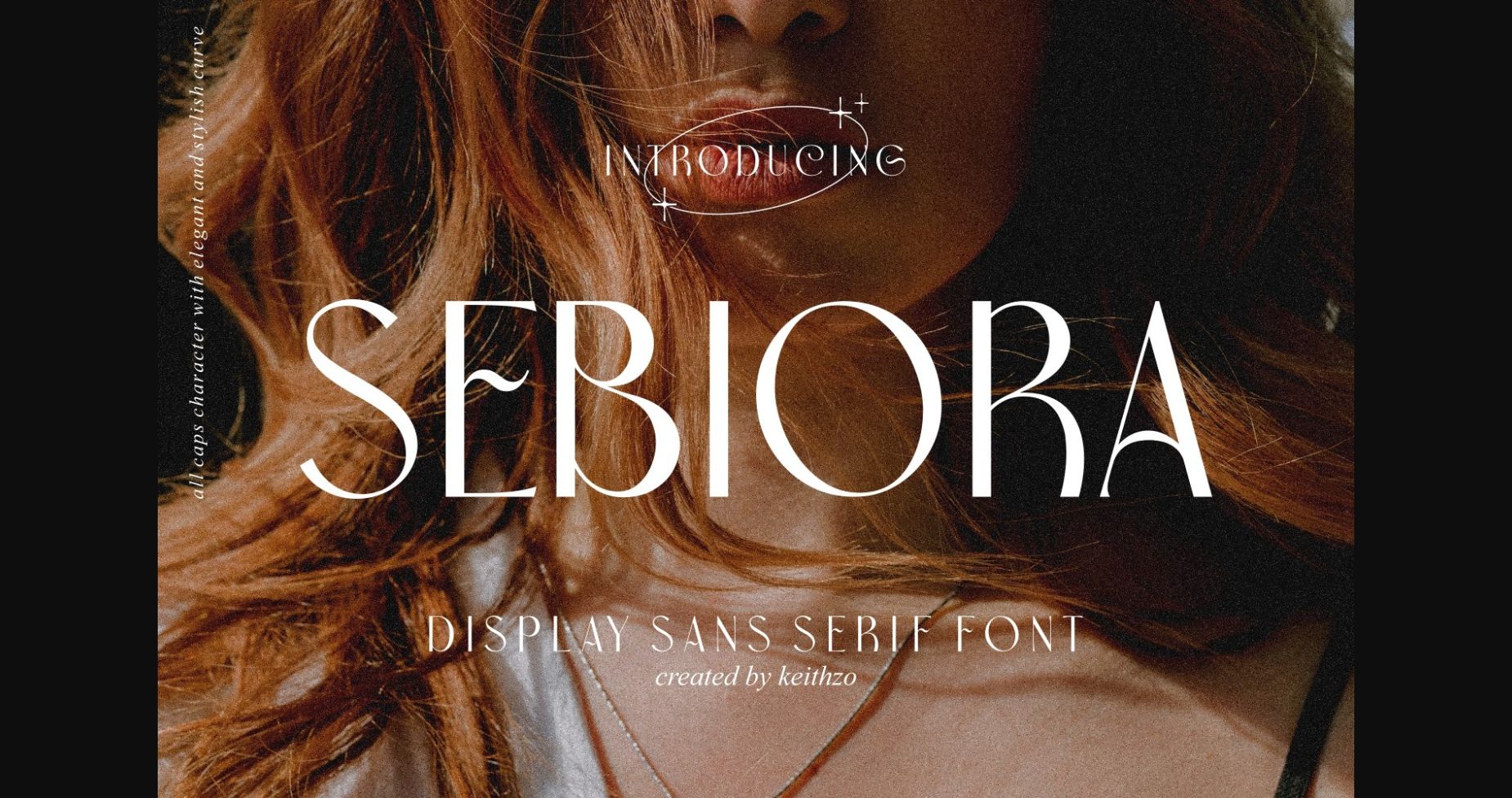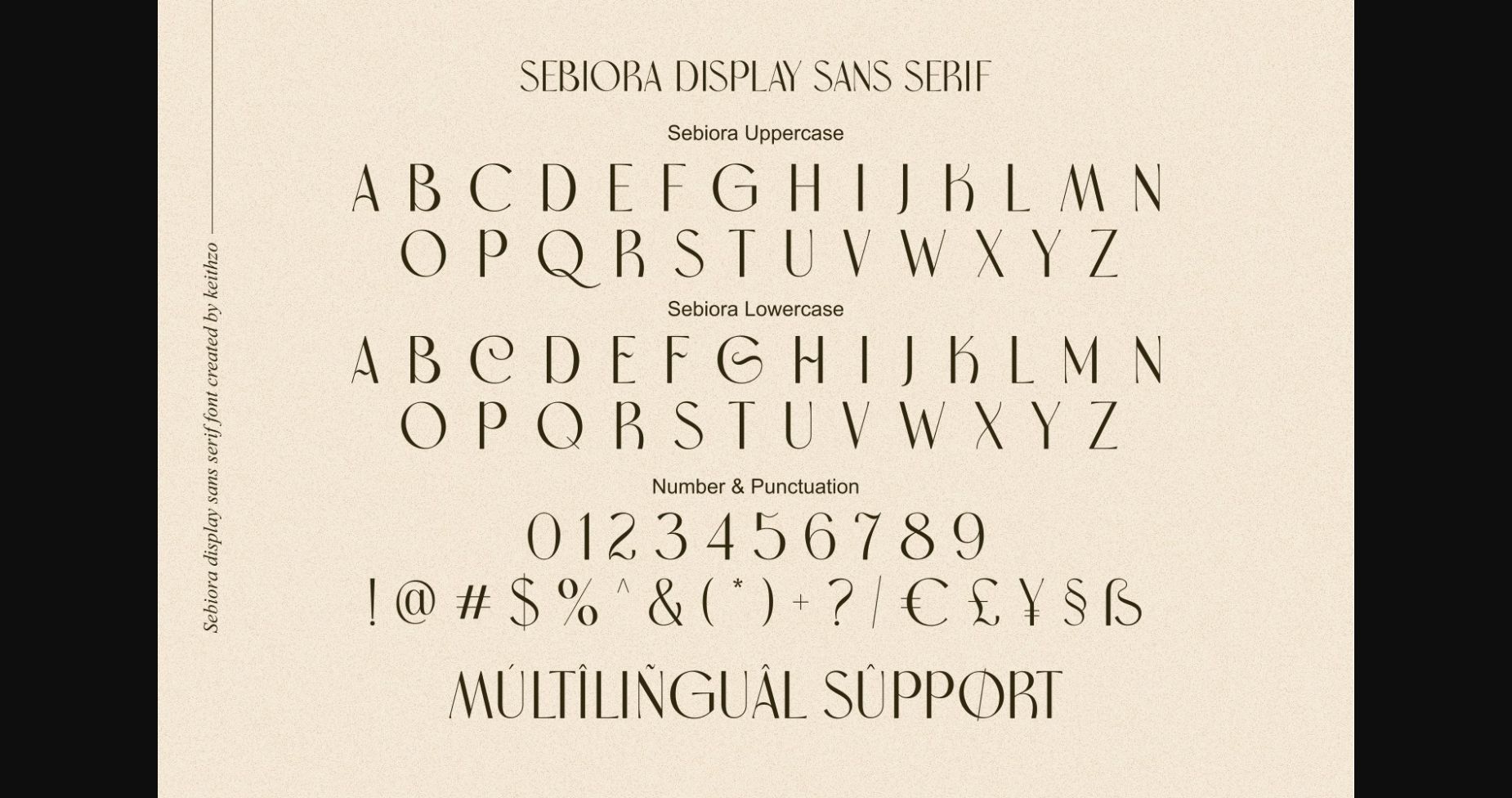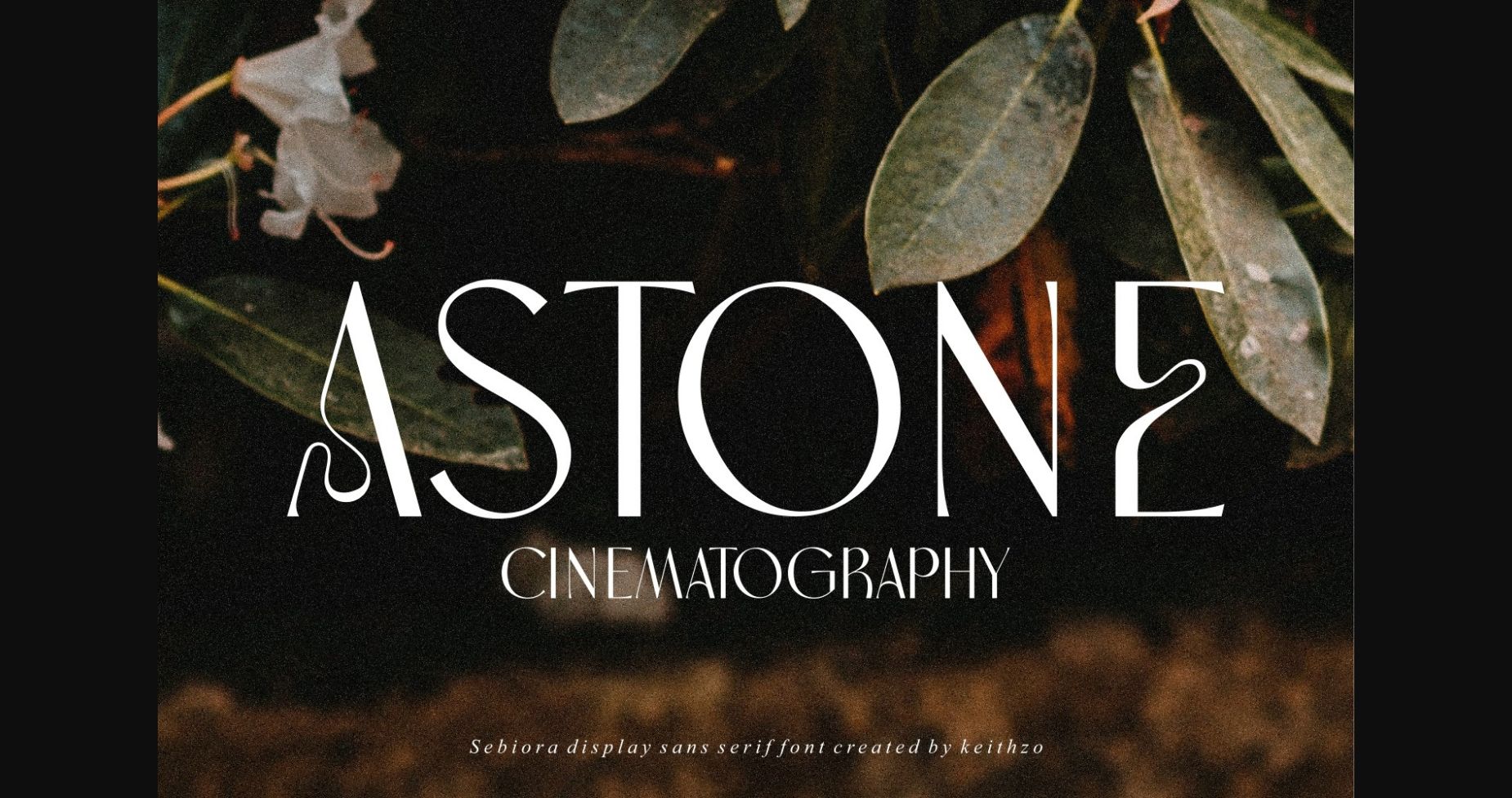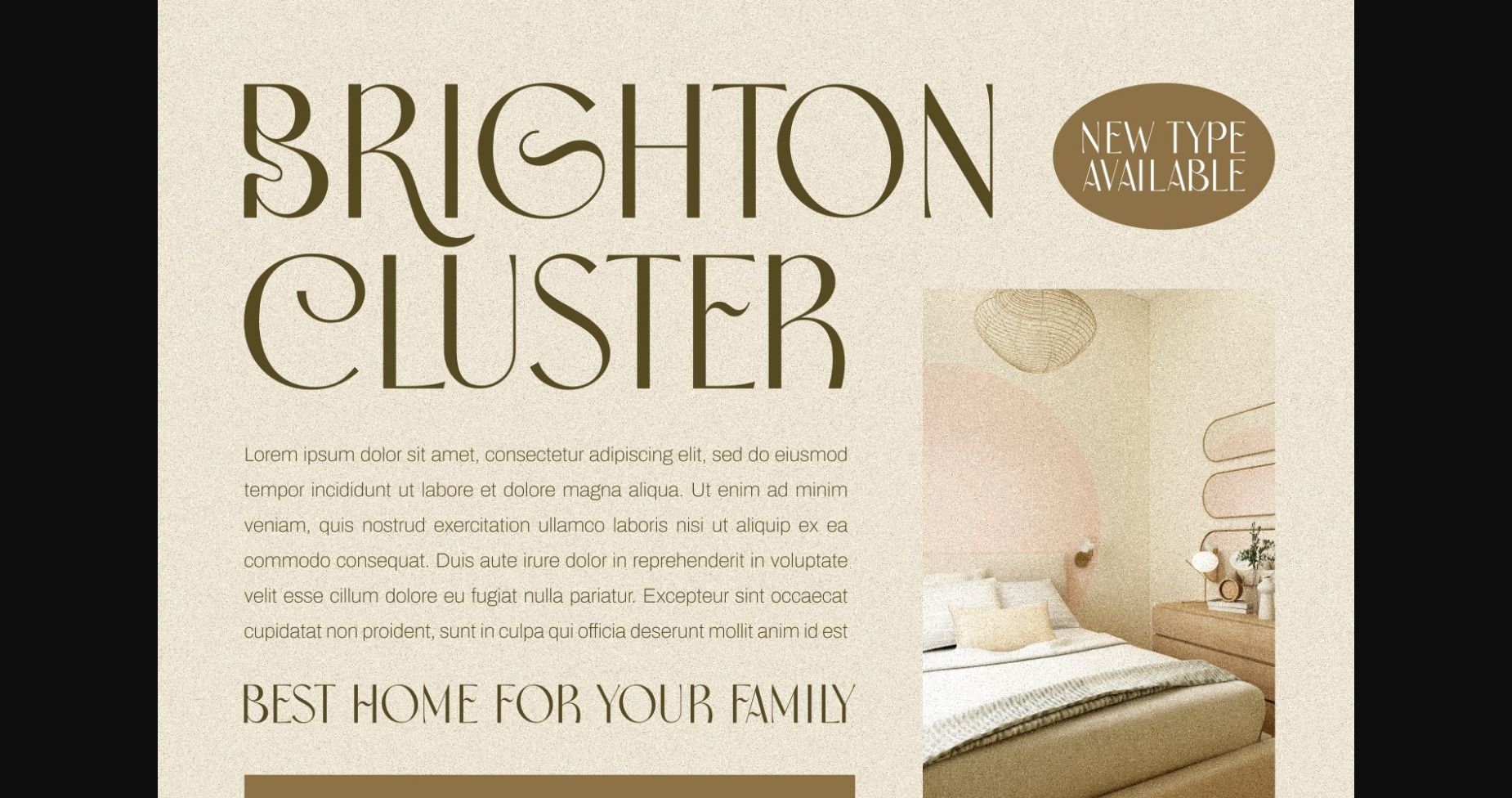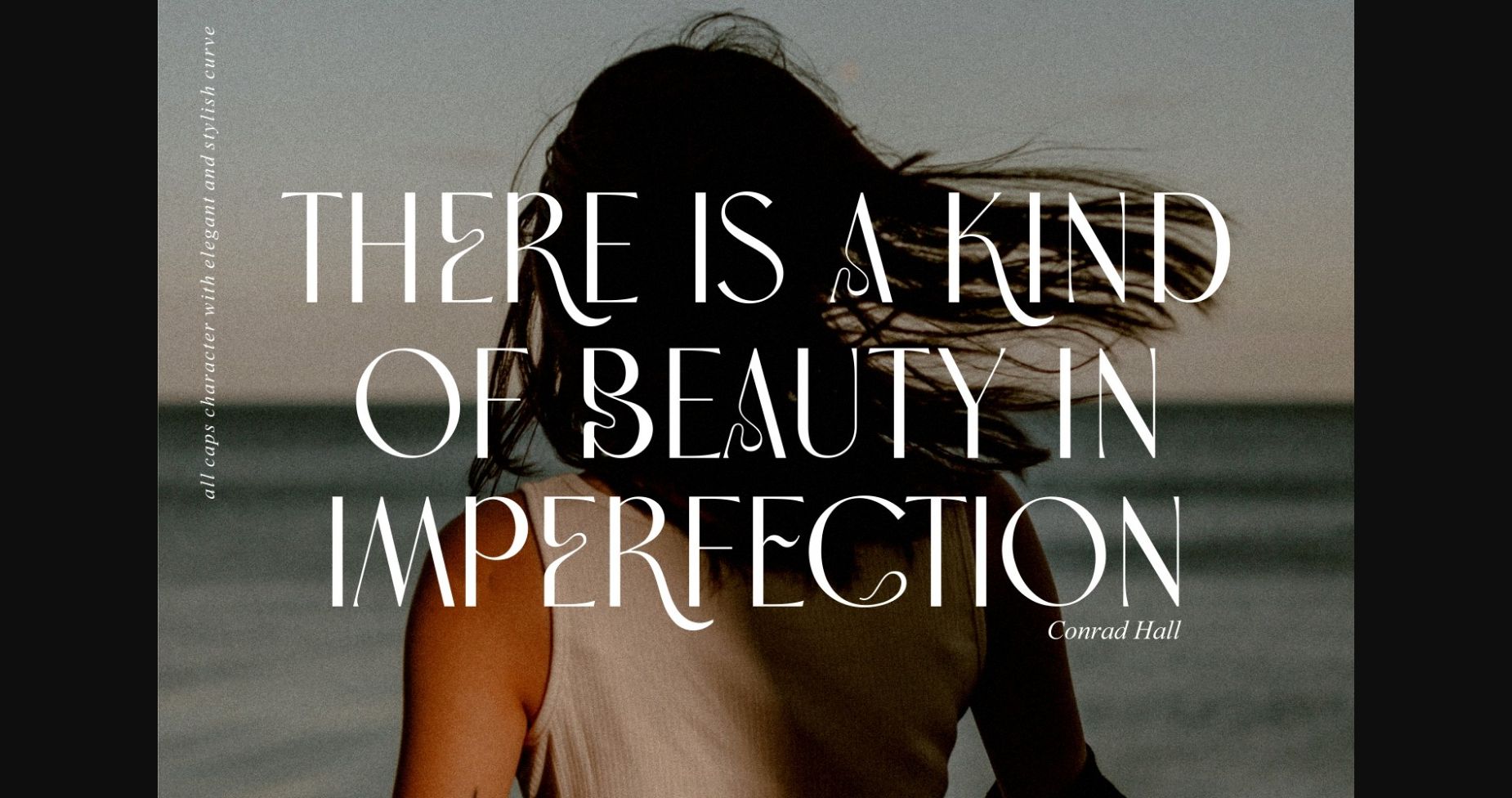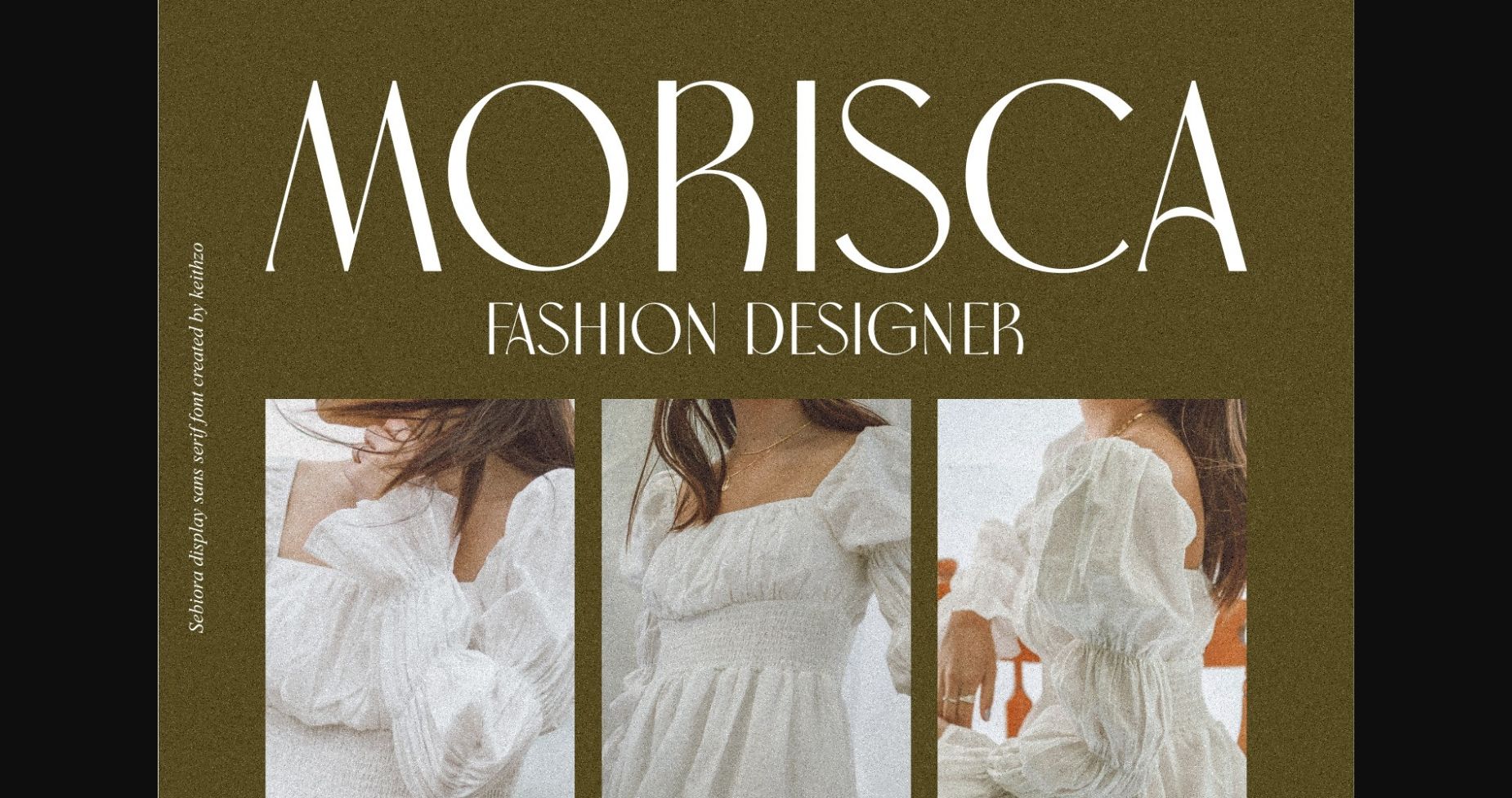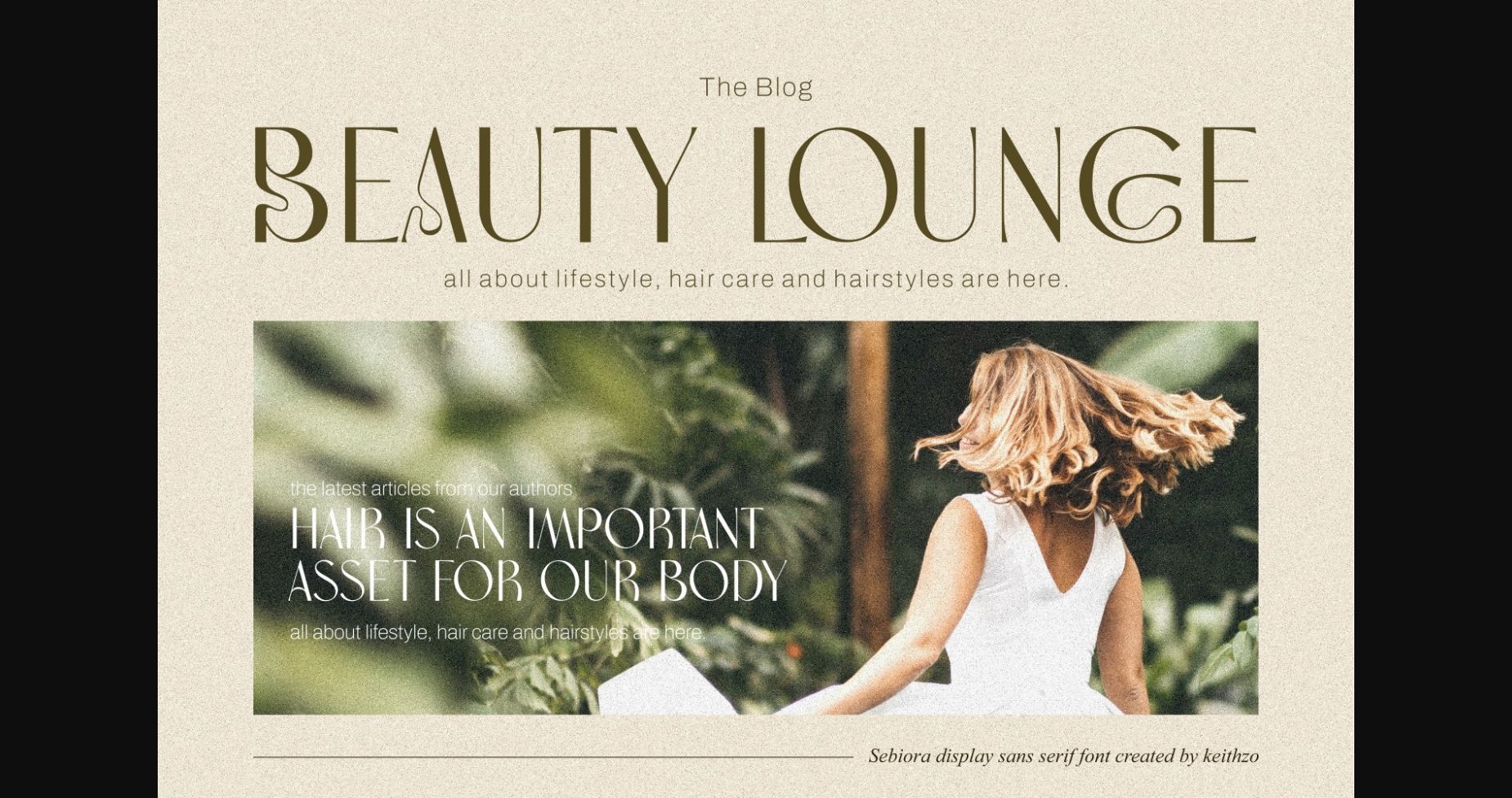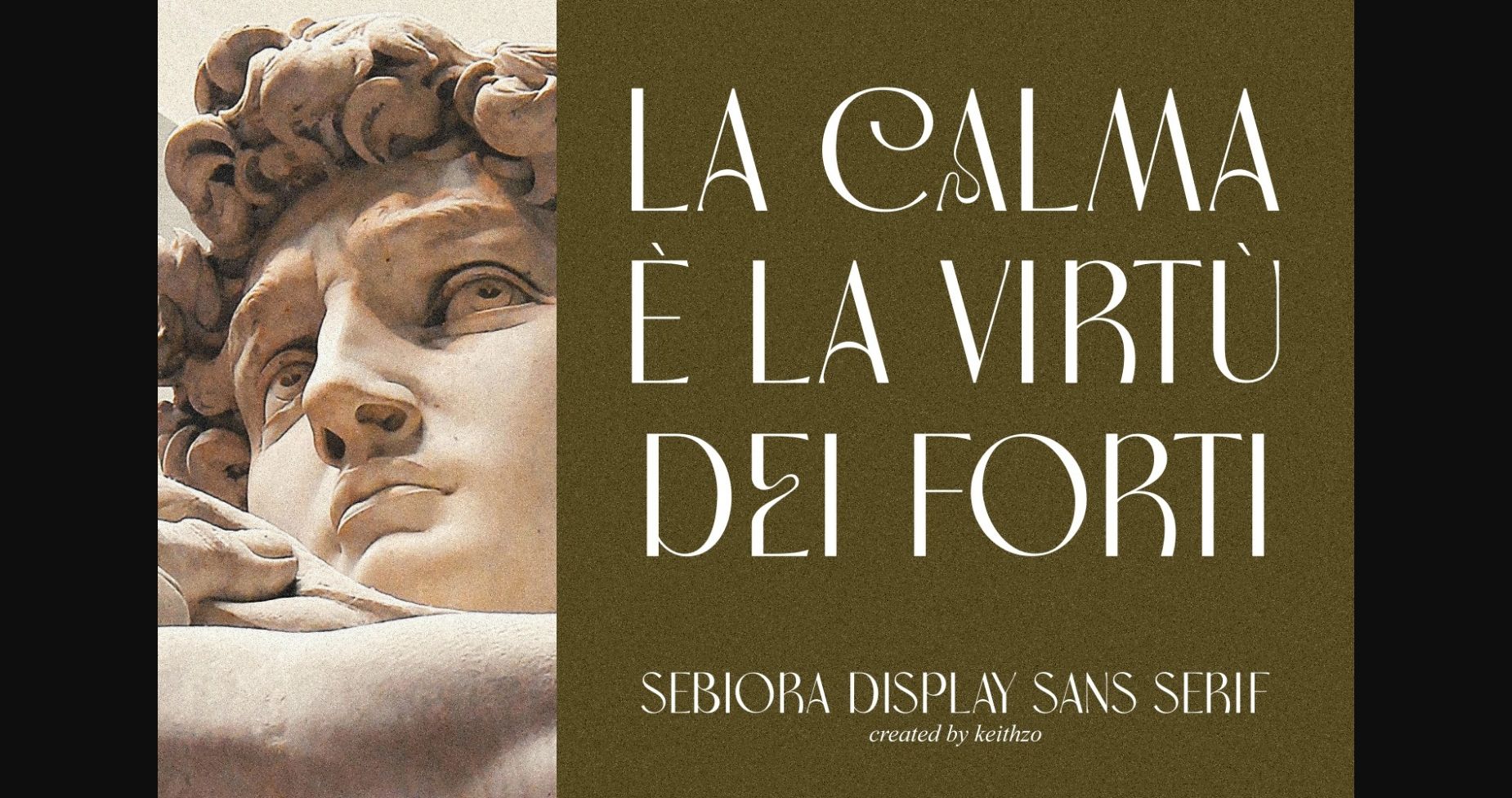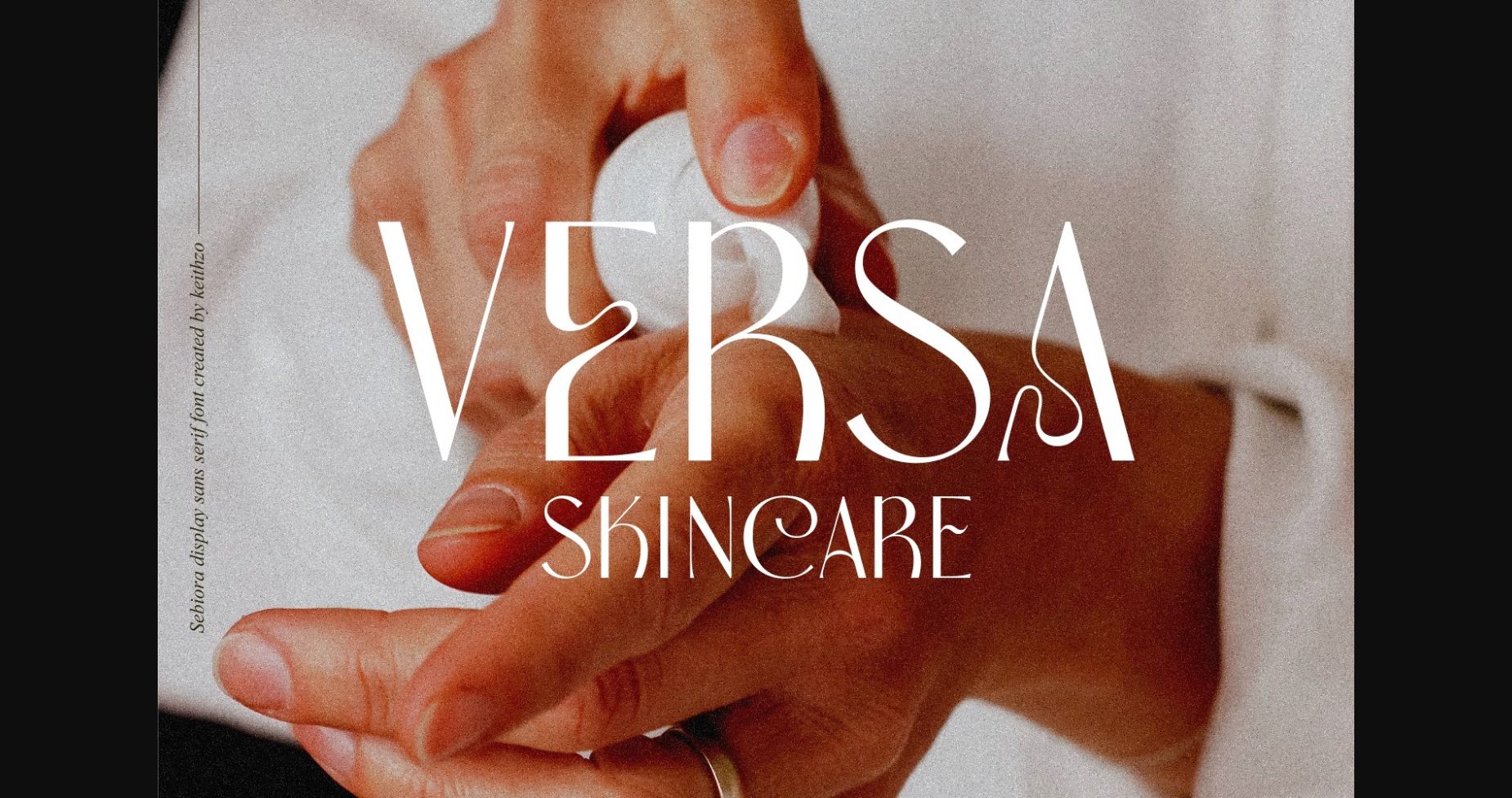
Sebiora Font
About Sebiora Font
Elevate your project with an attractive and elegant serif font. Sebiora’s sophisticated and refined curves exude a sense of luxury and professionalism, making it the perfect choice for any high-end design. Don’t miss out on this must-have font for your next project that needs a touch of class.